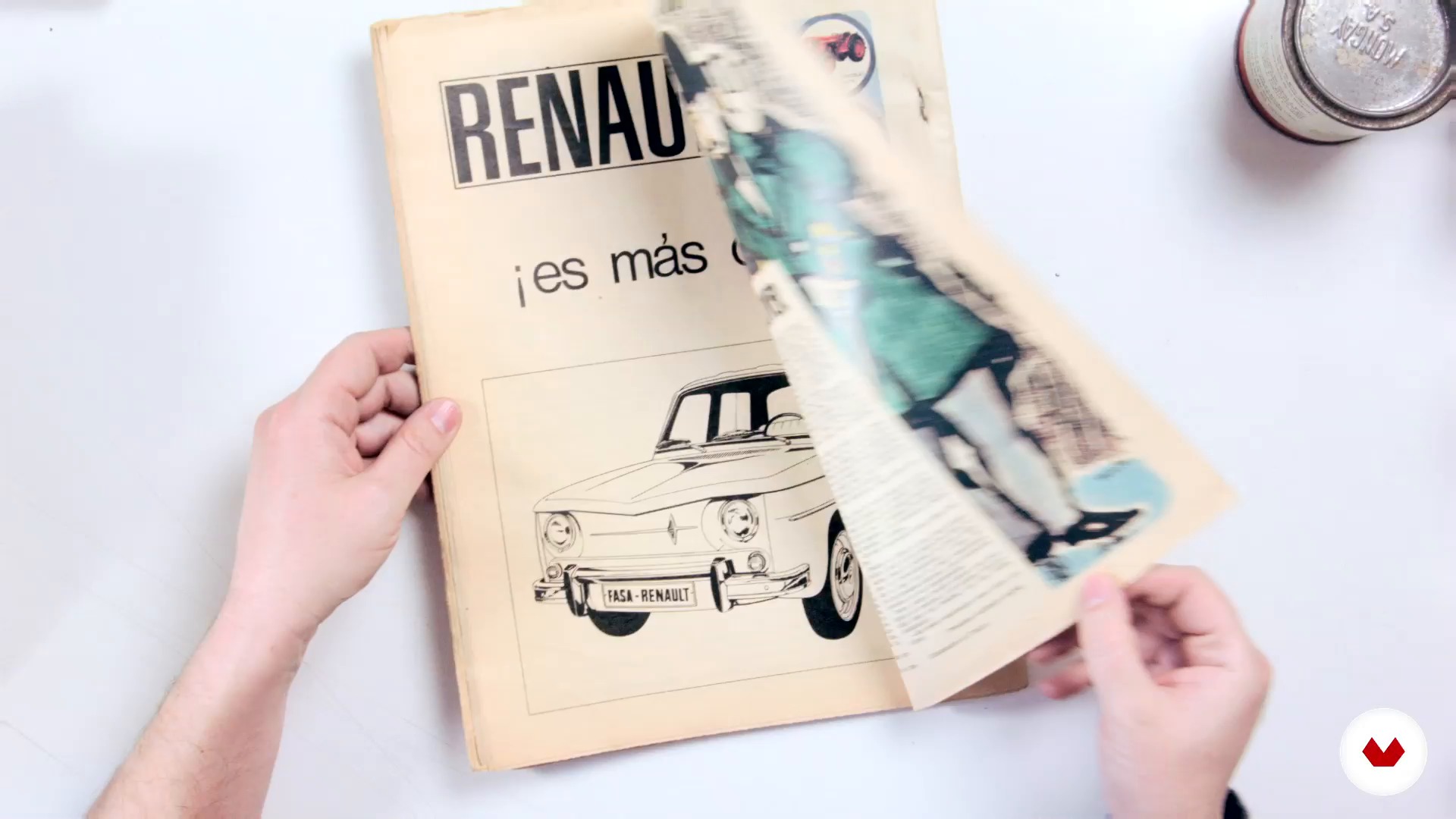
Design a Digital Font from A to Z
Shipping library and life saving resources
A course by Juanjo López , Graphic Designer and Typography Expert
About the video: Shipping library and life saving resources
“In this lesson, I will set up my little Rastro post with a profusion of dusty books and varied caching. In the additional resources I leave websites to go to in case of fire. ”
In this video lesson Juanjo López addresses the topic: Shipping library and life saving resources, which is part of the Domestika online course: Design a Digital Font from A to Z. Learn to design a font from scratch with Glyphs, Illustrator, and OpenType functions.
“Well. now let's explore what inspires and motivates me in the realms of typography. lettering. and similar fields. For this purpose. i have gathered an extensive collection that covers various aspects of my interests. To begin our discussion today. i've set up a little stand with a diverse array of items including This piece focuses specifically on Eric Gill’s contributions to typography. My intention in presenting is primarily for the publisher. canGraphic. rather than the book itself. The publishing house has undertaken a challenging mission by attempting to translate numerous typography ...”